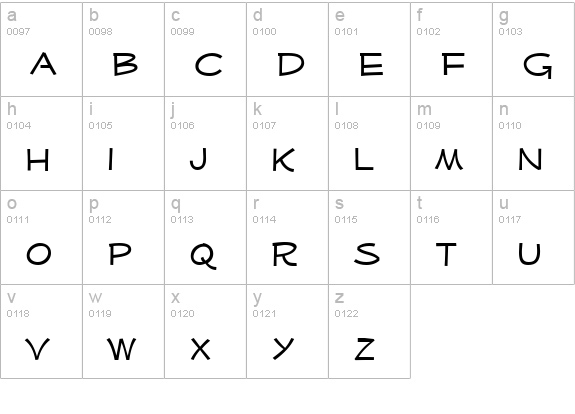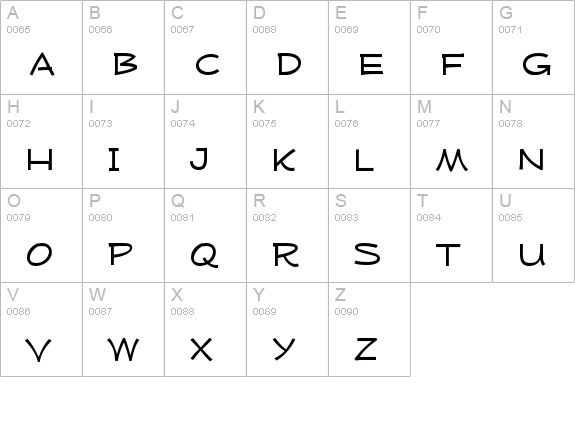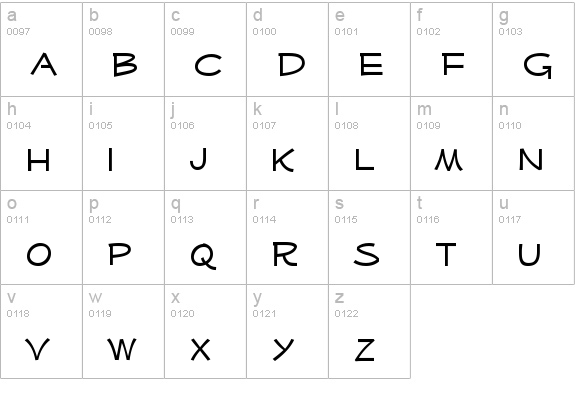
Mufferaw Xp Font Details
Mufferaw Xp font is a bold and charismatic typeface that exudes a sense of strength and resilience. With its sturdy letterforms and rugged aesthetic, this font is perfect for making a statement in your designs. Whether you're working on a poster, logo, or headline, Mufferaw Xp will grab attention and leave a lasting impression. The best part? Mufferaw Xp font is completely free to download at FontsMarket.com! You can easily add this versatile font to your collection without any cost, making it a valuable resource for all your creative projects. Don't miss out on this opportunity to enhance your designs with the unique charm of Mufferaw Xp font. Download it today and let your creativity shine!